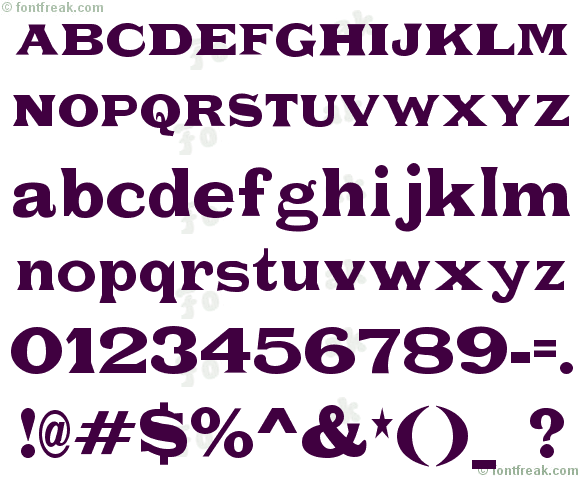
Fat Legs
About Fat Legs
The Fat Legs font by The Font Farm is a striking display typeface that captures attention with its bold and playful design. As a decorative font, it features a heavy stroke weight with minimal contrast, giving it a chunky appearance that is both fun and impactful. The broad, rounded shapes create a sense of warmth and friendliness, making it ideal for a variety of creative projects. The spacing is generous, allowing each letter to breathe while ensuring readability, which is crucial for effective communication.
This font is particularly suited for eye-catching use cases such as restaurant menus, where its playful nature can enhance the dining experience, or movie posters, where it can convey a sense of excitement and energy. Additionally, Fat Legs works wonderfully for children's book covers, party invitations, and branding materials for small businesses looking to make a memorable impression. Its unique character allows it to stand out in crowded markets, appealing to graphic designers, small business owners, and content creators alike.